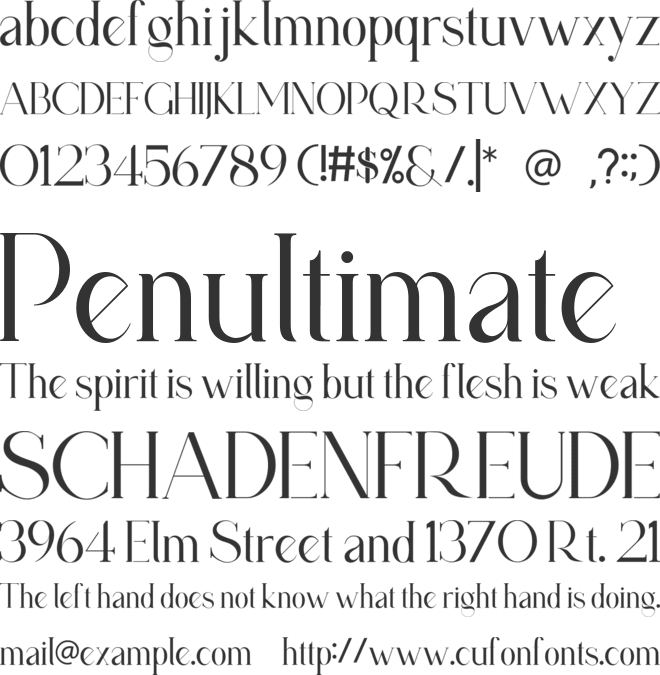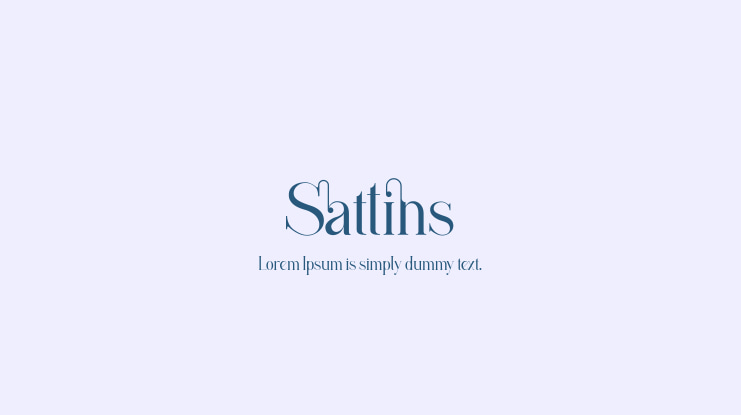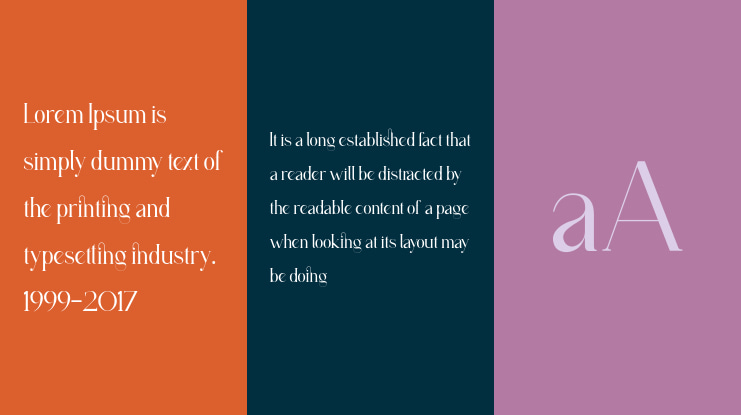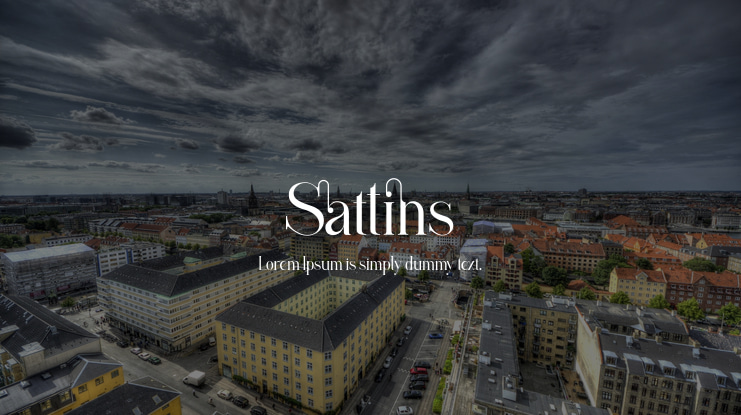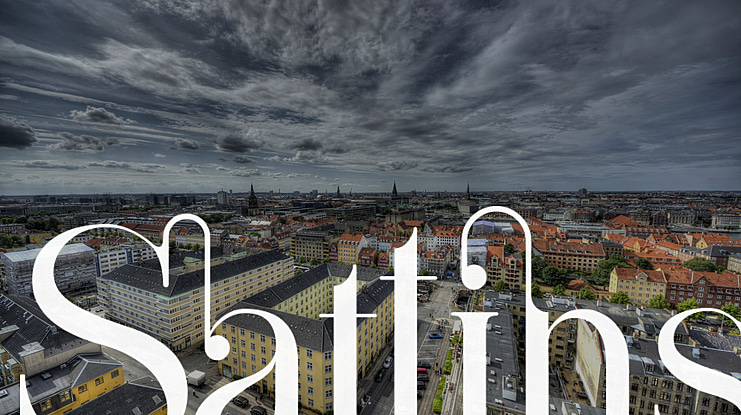
Sattins Font
It’s a serif typeface created by Humaira_std with an experimental and sharp style. Already matched up and ready to be used together for your next design! For those of you who are needing a touch of elegant, stylish, classy, chic and modernity for your designs, this font was created for you!